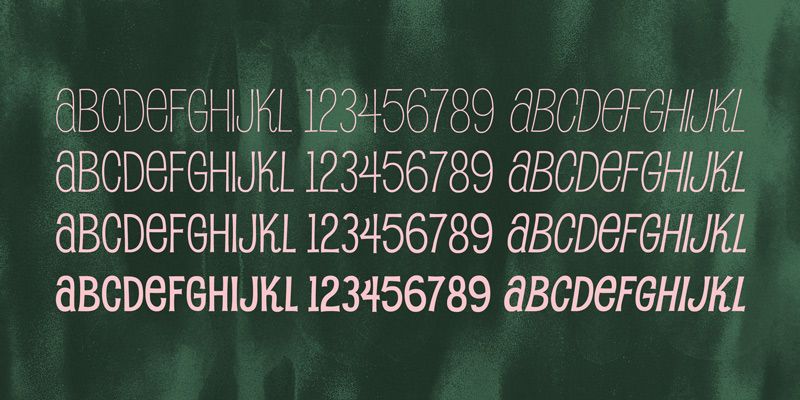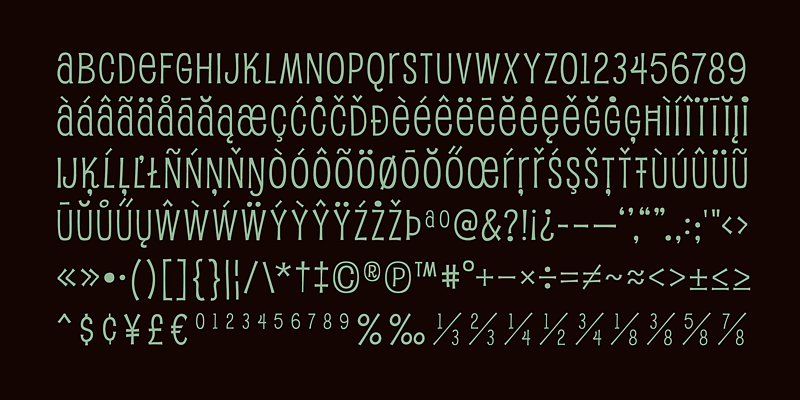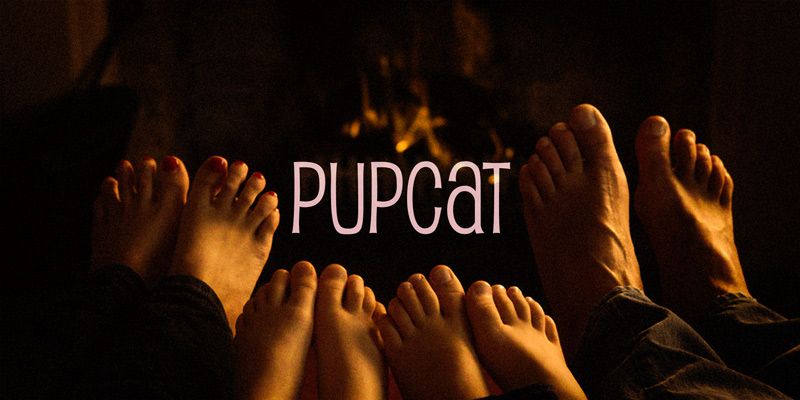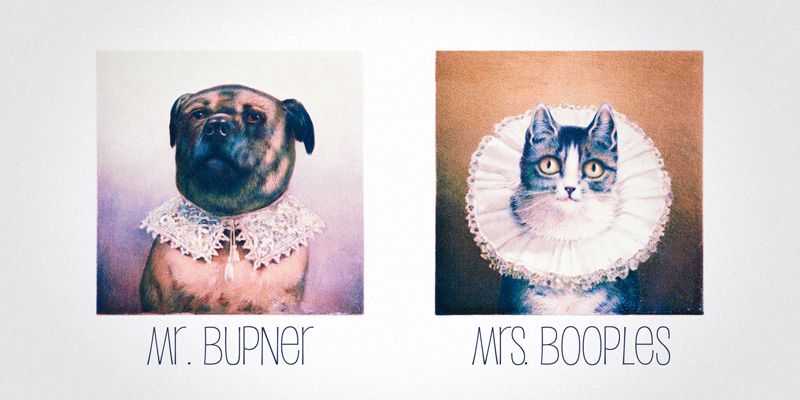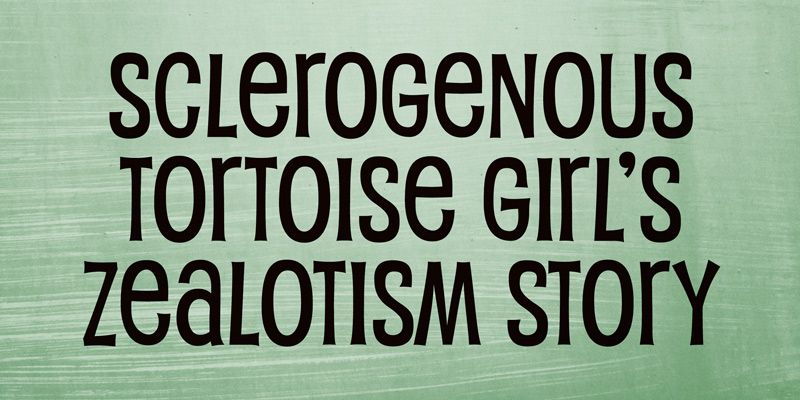
Pupcat draws on the tall, lively lettering of 1960s Hollywood comedy posters. Its slim shapes and playful stance make a short title feel theatrical without relying on a cartoon outline. Four weights run from ExtraLight through Bold, with matching italics, giving a campaign room for both airy and more emphatic display lines. Alternate A, E, and R forms can help tune a prominent word, while fractions, ordinals, and math symbols give the character set some practical reach. Try it for a patisserie, confectionery package, film event, or cheerful editorial cover where the lettering should do some of the acting.